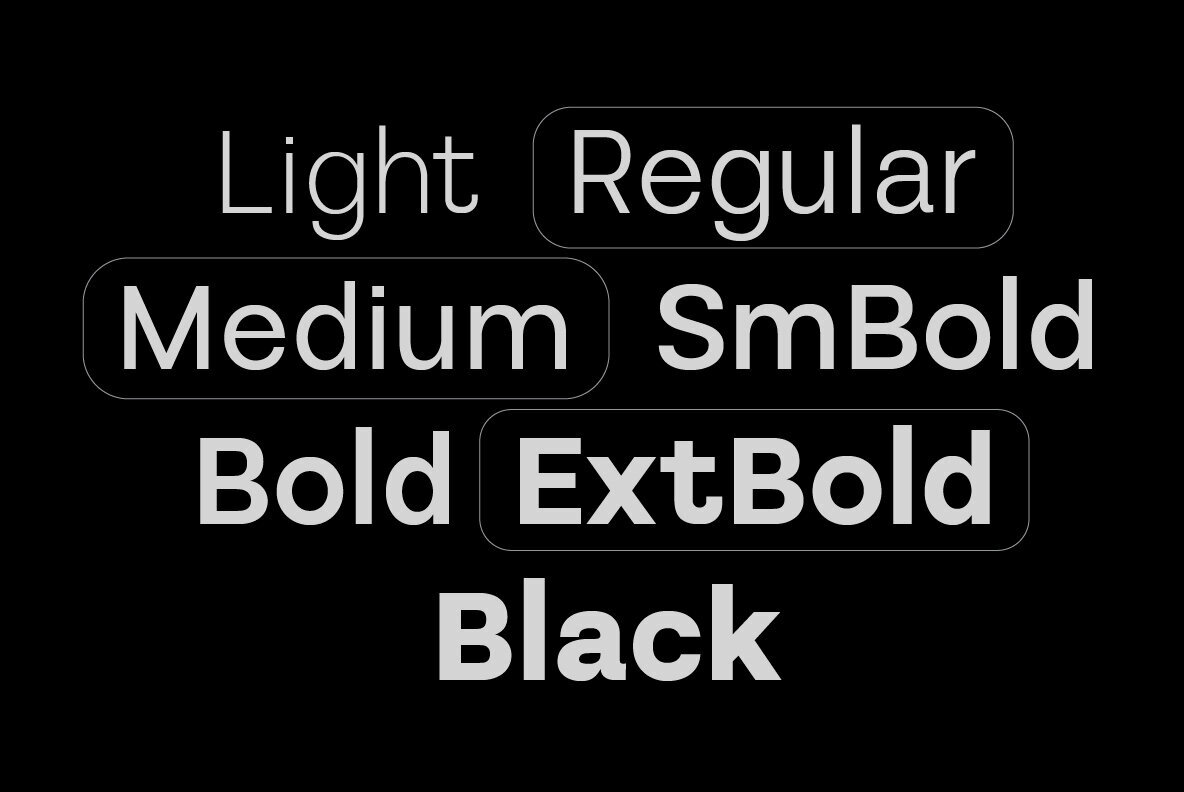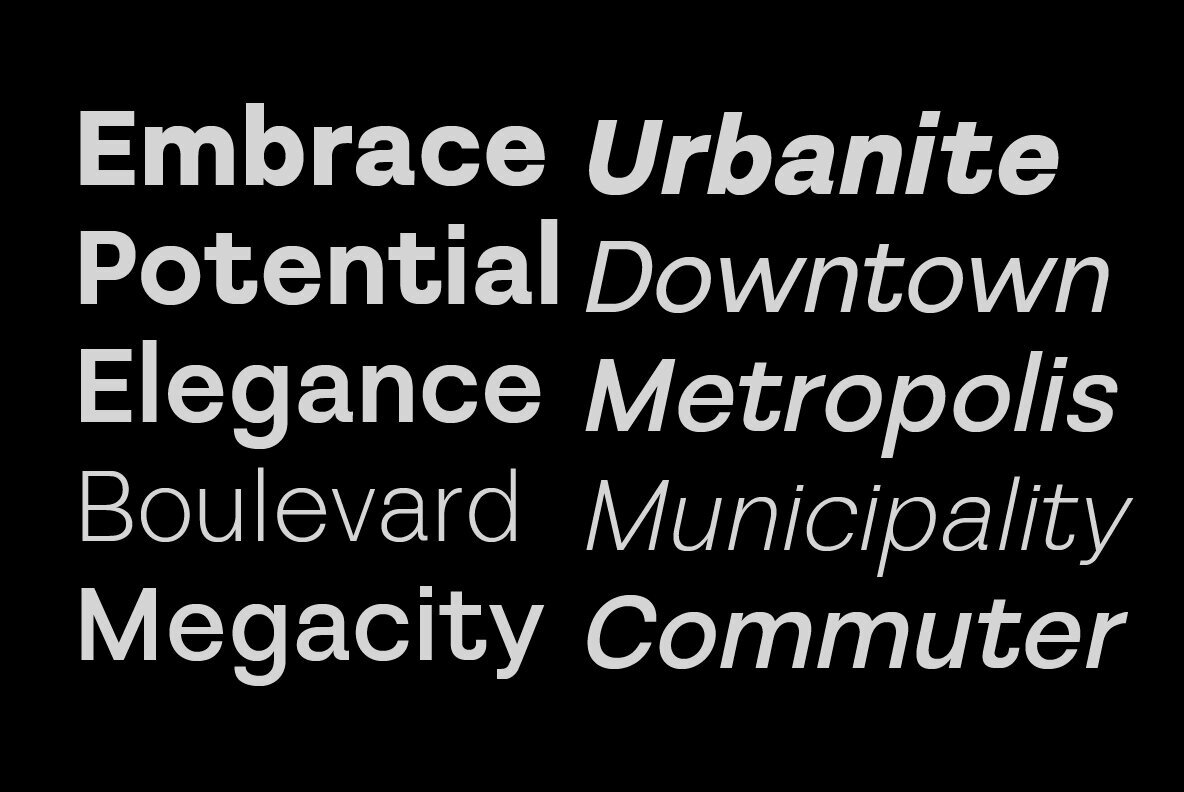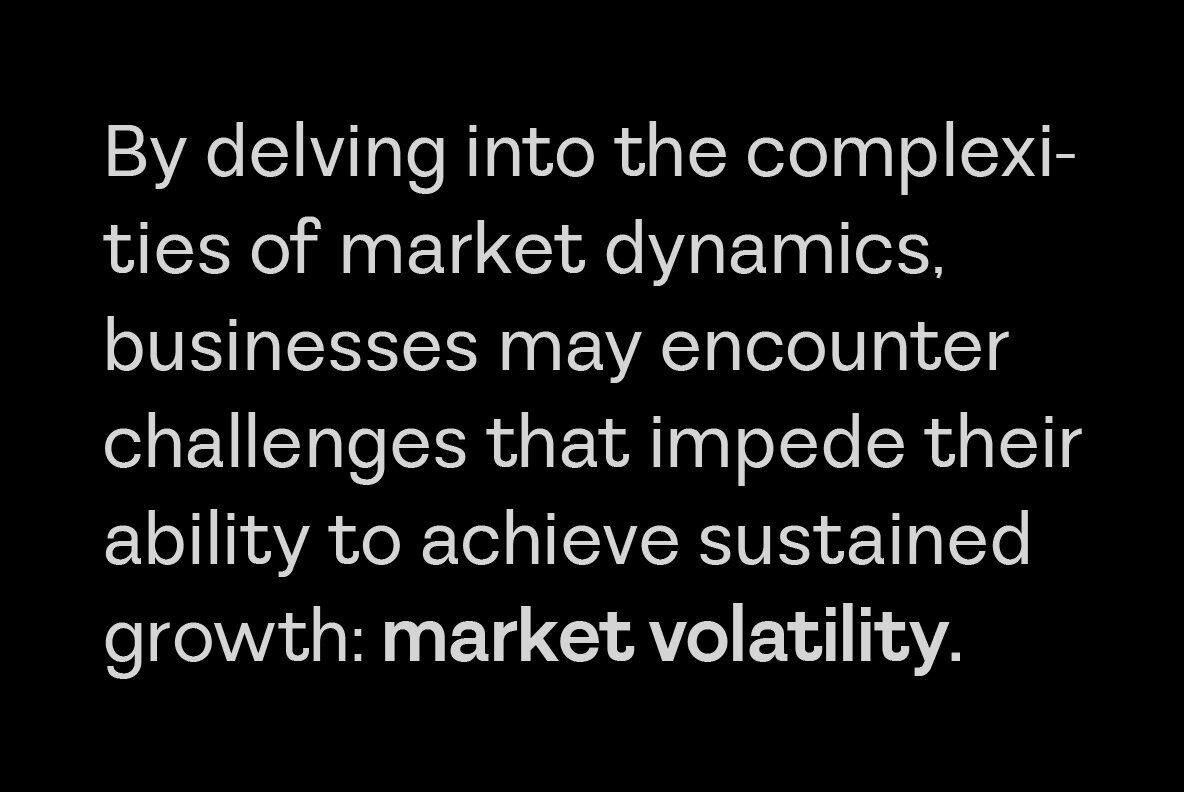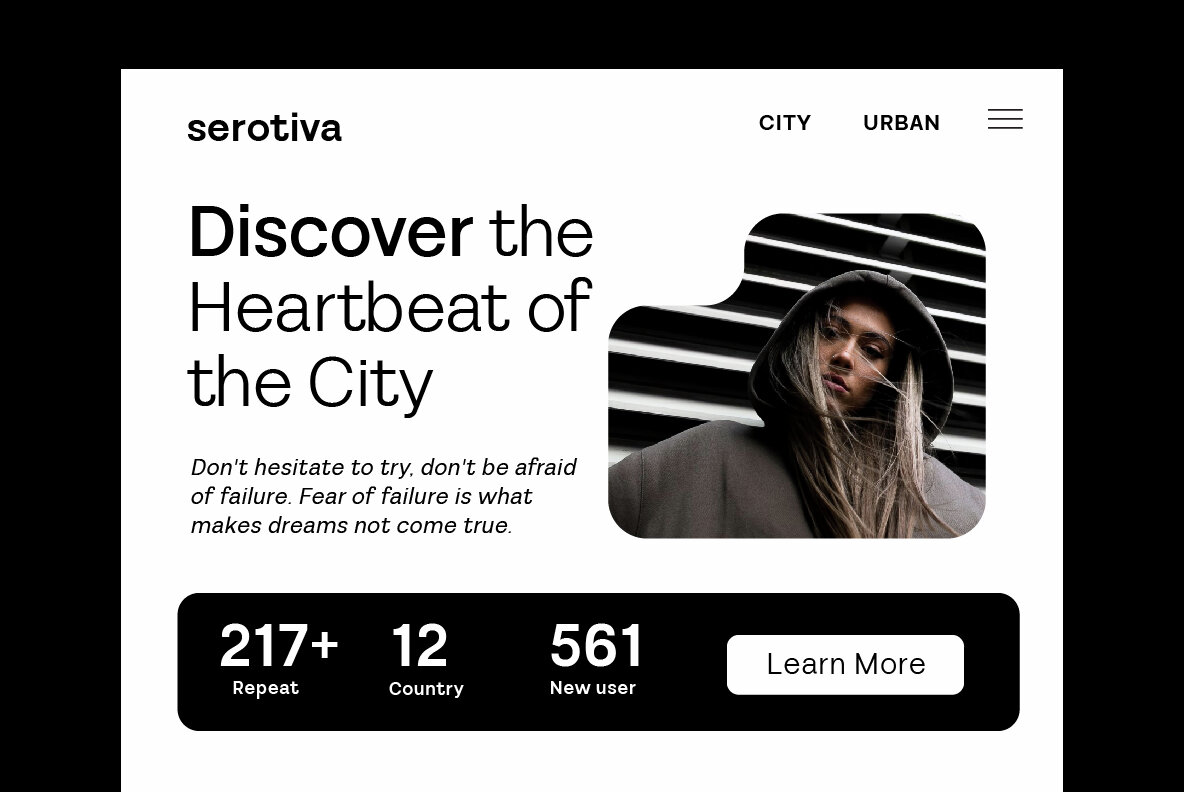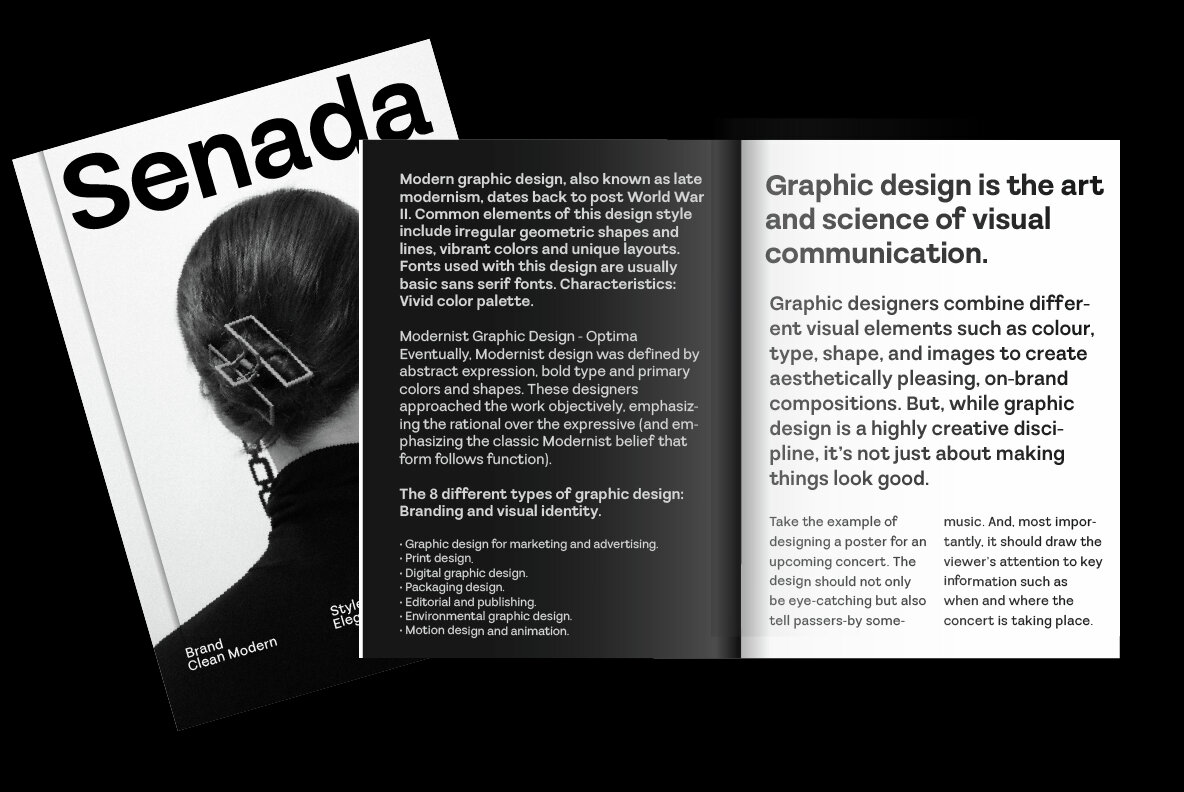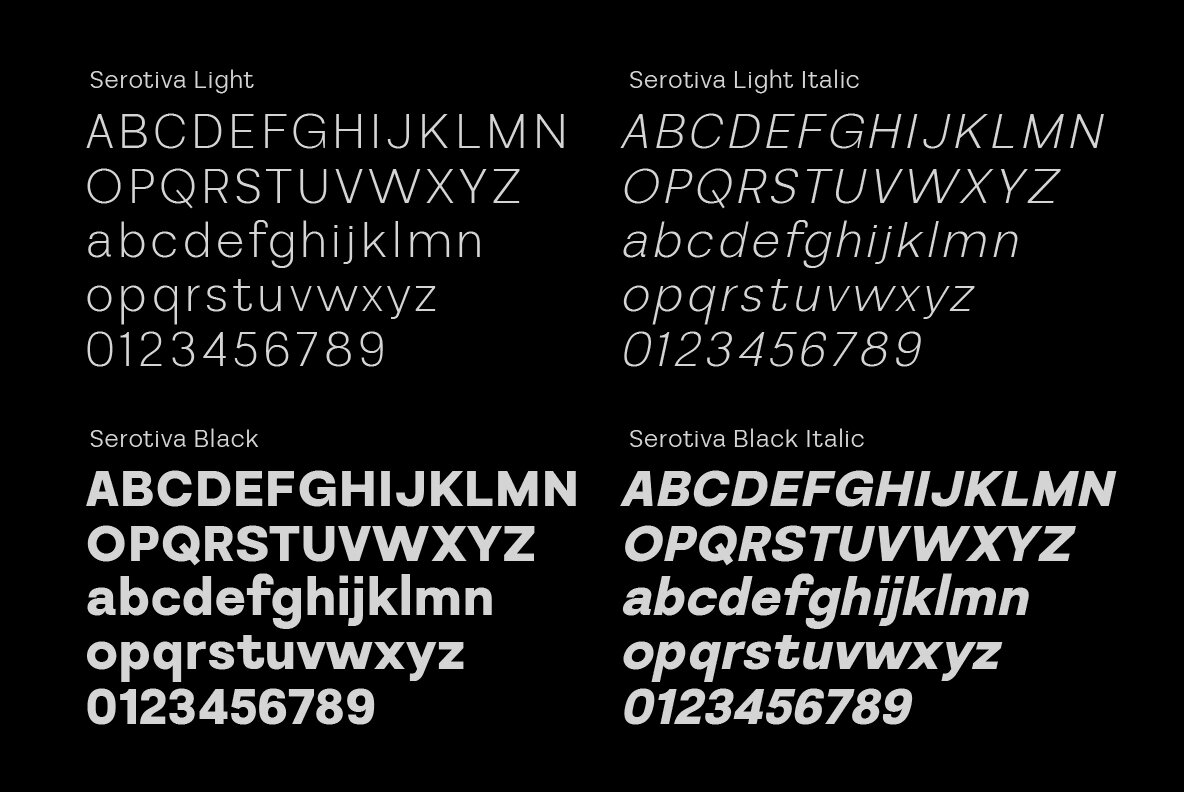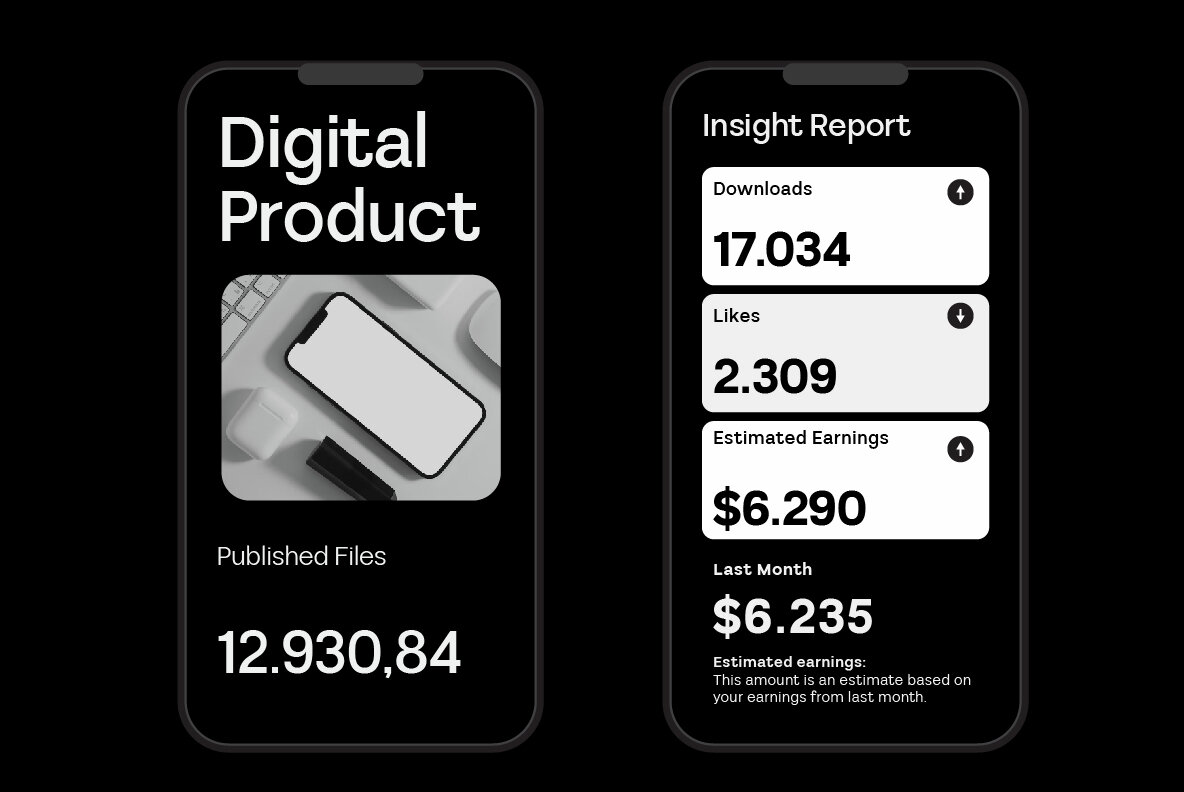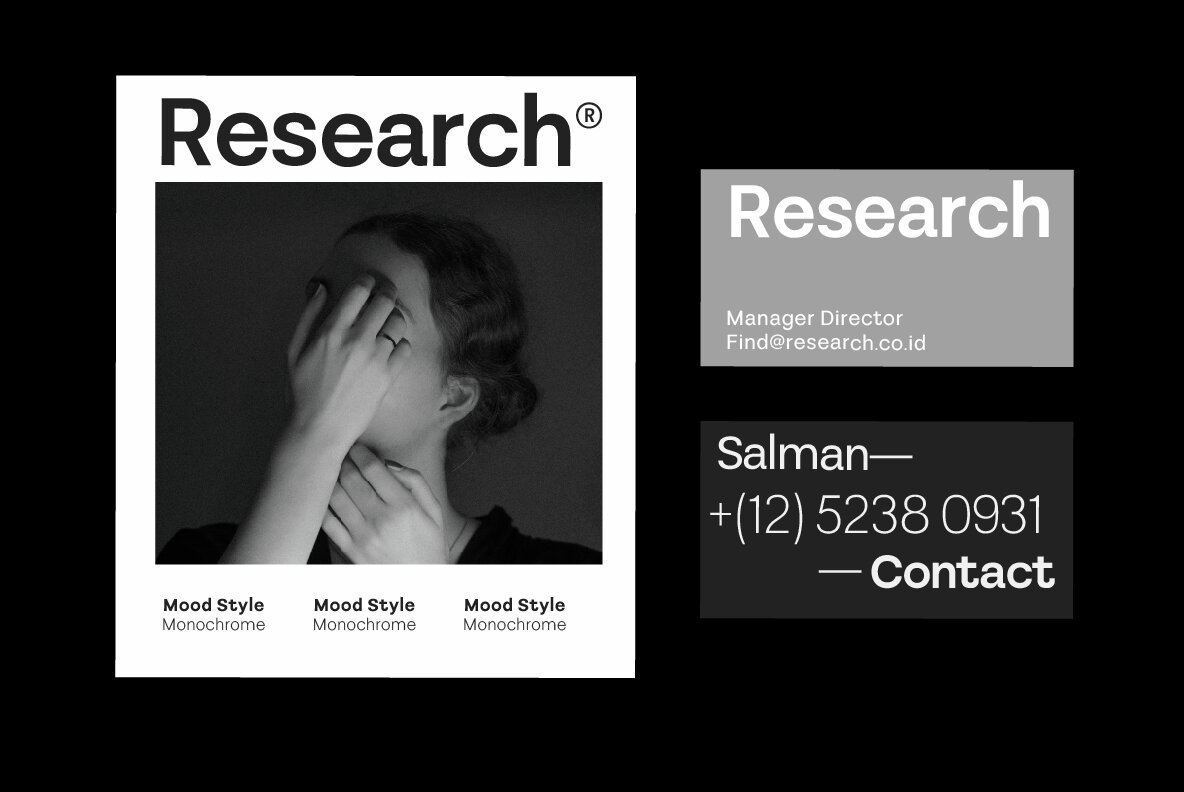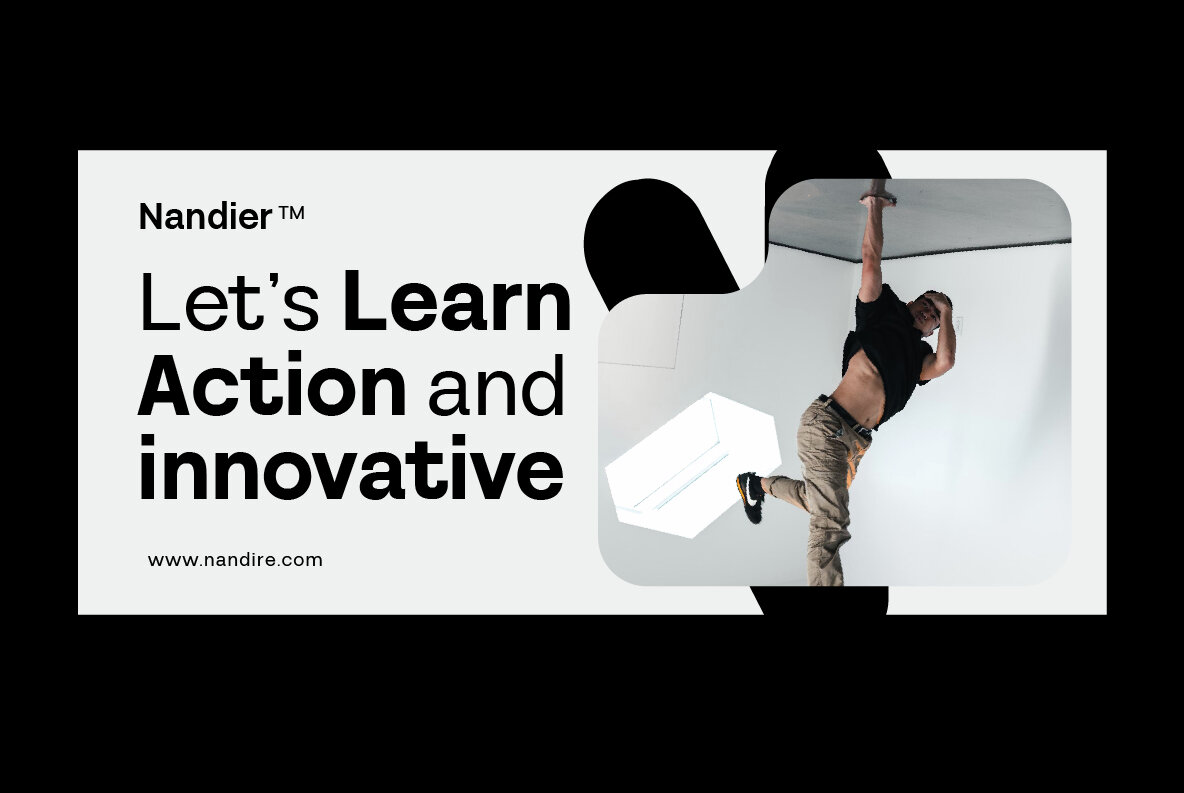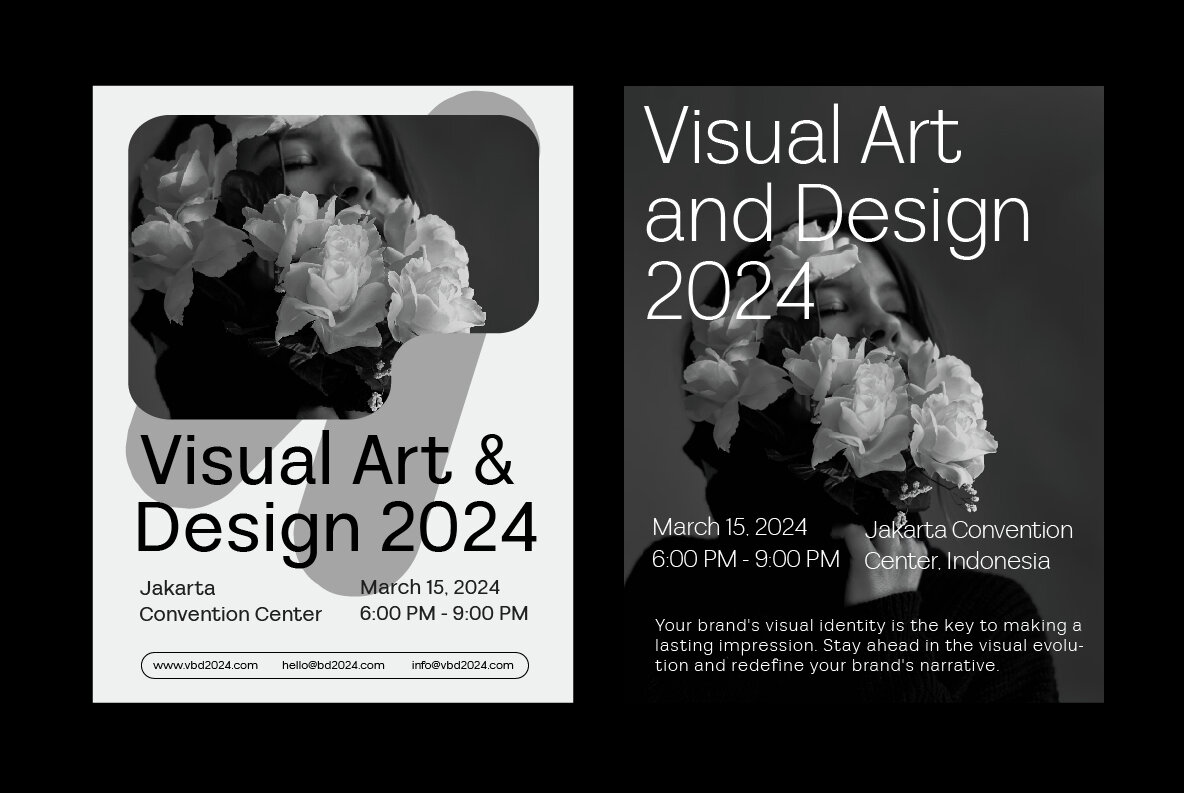
Serotiva Font
Serotiva Sans Serif font boasts a contemporary and refined design, making it an ideal choice for a wide range of design projects. Its smooth and polished appearance, coupled with its lack of flourishes, creates an air of sophistication and ensures that text is easy to read and professional-looking. Moreover, this versatile font comes in different weights, making it a perfect choice for a variety of design projects, from those requiring long blocks of text to those with a more visually-focused aesthetic.